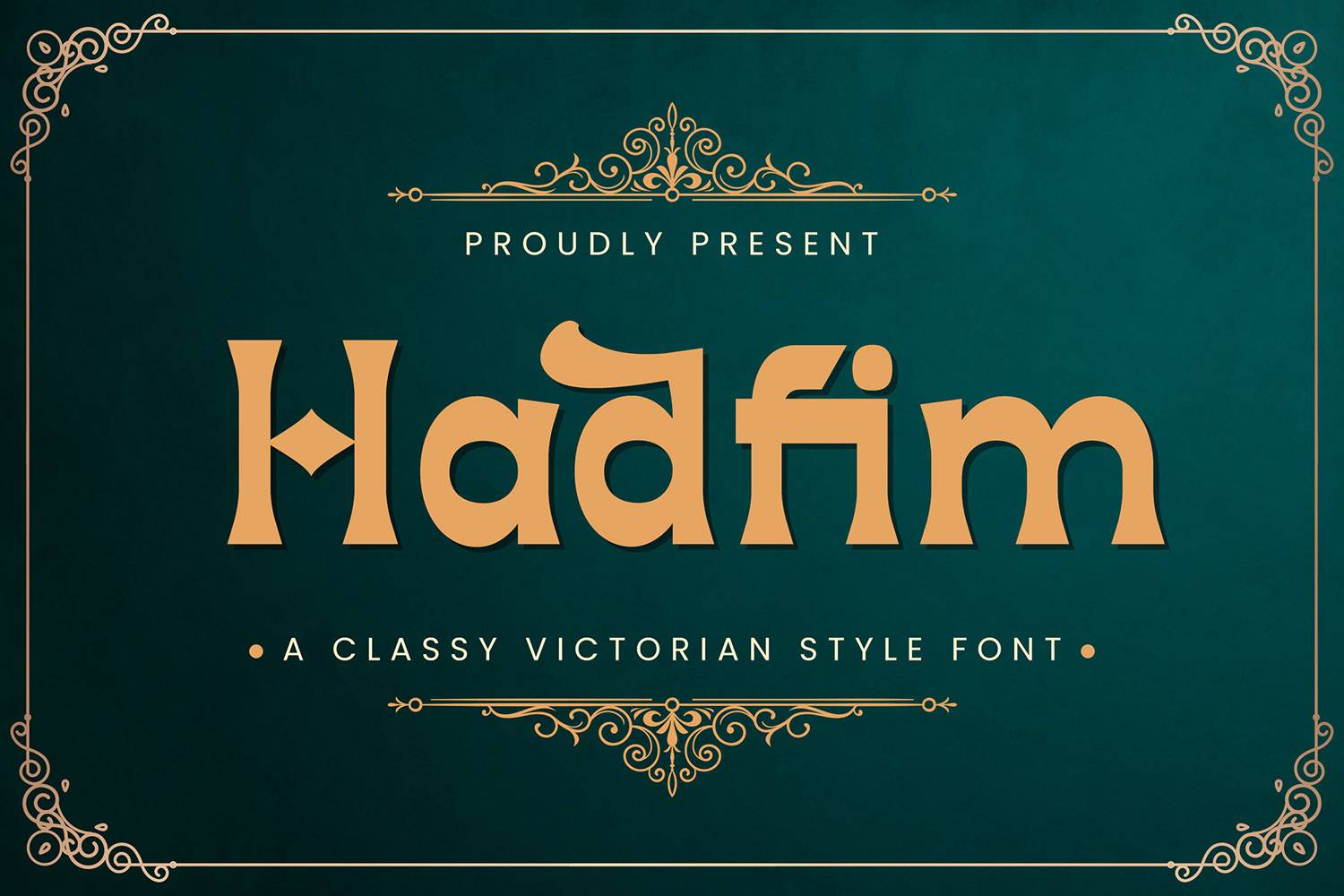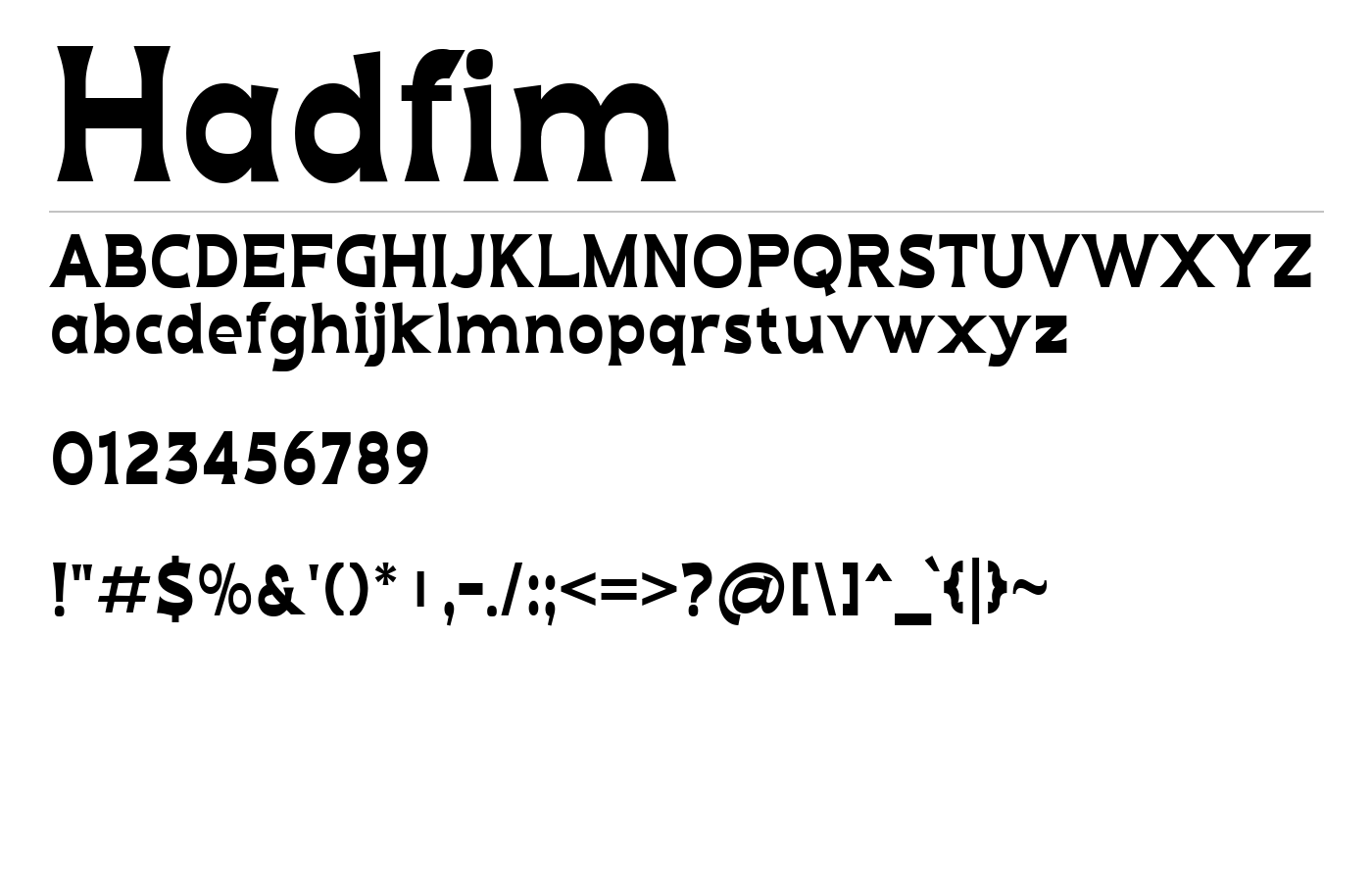
Hadfim is a bold serif font with a distinctive, slightly quirky personality, featuring strong contrast between thick and thin strokes and sharp, flared serifs. Its upright stress and unique letter shapes give it a vintage yet playful feel, making it ideal for attention-grabbing headlines, logos, and creative branding that wants to stand out with a touch of character. This font works well in print and digital designs where a statement font with personality is needed.
Hadfim Font